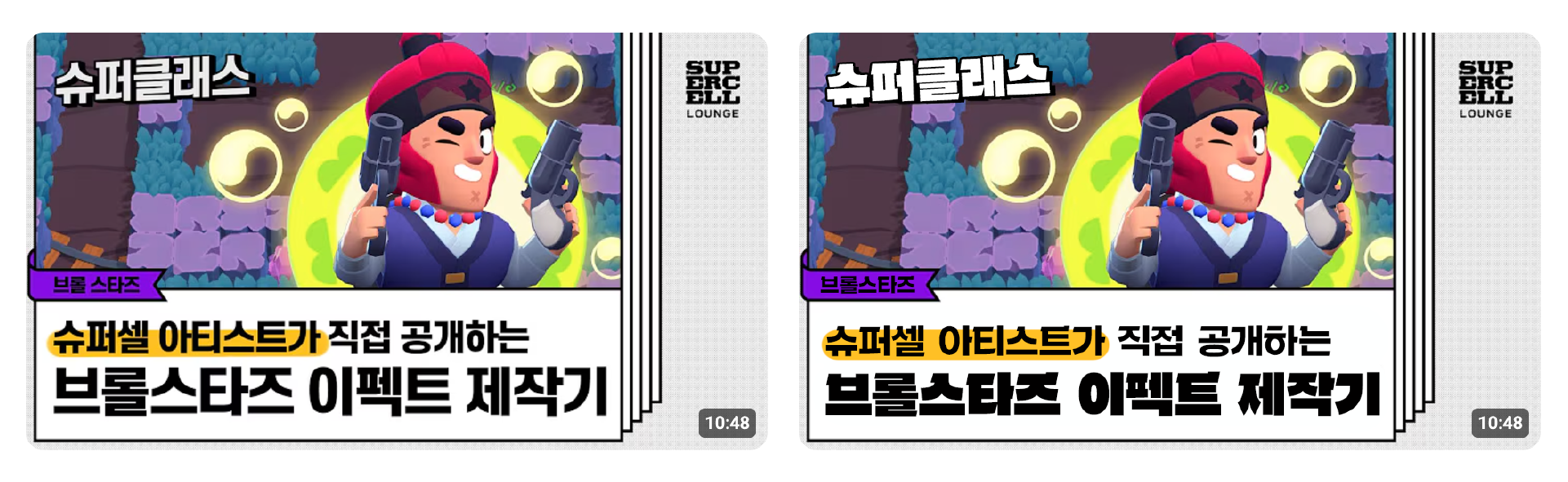
A Reunion After Ten Years
After Supercell launched the mobile game Brawl Stars in 2019, it gradually gained popularity in Korea and generated enthusiastic responses from users, leading to a growing need to strengthen the brand image for the Korean market. While the English version used a Latin font that effectively conveyed the brand identity of Brawl Stars, the Korean version relied on a font with a different tone, leaving room for improvement in terms of design consistency. Building on this popularity, Supercell decided to develop a new Hangul font to further solidify the Brawl Stars brand identity in Korea, and approached Sandoll for this project.
In-game screens from Brawl Stars
The connection between Supercell and Sandoll dates back about ten years, beginning with the development of the Hangul font for the popular game Clash of Clans (Link). I was involved in the design work at the time, and as part of the job, I started playing the game. As the work progressed, I gradually became drawn to Supercell’s games and their world, and before I knew it, I had become an enthusiastic user and fan. (From then until now, I still play the game every day.)
After the initial font development, there were several rounds of updates and communication, but it was truly a pleasure to once again collaborate on a game font for Supercell this time. The joy was even greater when it was confirmed that the font would be developed together with Sandoll. Working with a game I love and a company I admire, I naturally took part in the design process with genuine enjoyment.
In-game screens from Clash of Clans
Latin → Hangul Matching Design
At Sandoll, we develop fonts for a wide range of languages, including Hangul, the Latin alphabet, Cyrillic, and Chinese characters. When developing fonts for two or more languages, we typically begin by designing the script that is most critical to the client. For domestic clients, Hangul is often designed first. In contrast, when working with overseas clients, the Latin alphabet is usually designed first to prioritize local usage, and Hangul is then matched to that Latin design.
Because Sandoll has extensive experience developing fonts for international clients, we are well accustomed to this approach. The Brawl Stars project followed the same process. As mentioned earlier, the English version already used a Latin font that effectively conveyed the Brawl Stars brand identity, and we were asked to design a Hangul counterpart that would align with it. In such cases, the design process generally proceeds in the following order:
Analysis of the Latin design
Hangul design and testing based on the analyzed characteristics
Interpretation (adaptation) and refinement
First, we analyze the structure and character of the Latin design. This includes identifying whether it falls into a humanist or geometric category, examining letter width, the degree of openness in counters, and the underlying skeleton, as well as reviewing detailed stylistic expressions and structural continuity.
Next, we apply the analyzed characteristics to Hangul and proceed through testing and iterative refinement. At times, certain Latin features may be applied more directly, but rather than forcing a literal transfer, we aim for a natural integration. I often refer to this process as “interpretation.” Much like adaptation in translation—where meaning and tone are shaped to fit context rather than rendered word for word—this approach seeks a natural and coherent result rather than a rigid, literal conversion.
So, how was the matching done?
In this project, we developed two styles: 「Brawl Display」 and 「Brawl Gothic」. In this article, we will focus on the design process of 「Brawl Display」.
Structural Analysis
One notable feature was the relatively high x-height of the Latin lowercase letters. This means that the height difference between uppercase and lowercase letters, as well as the gap between ascenders and the x-height, is not very large. Based on this structure, we determined that Hangul’s square-based structure, which also has relatively small height variation, would be a good match.
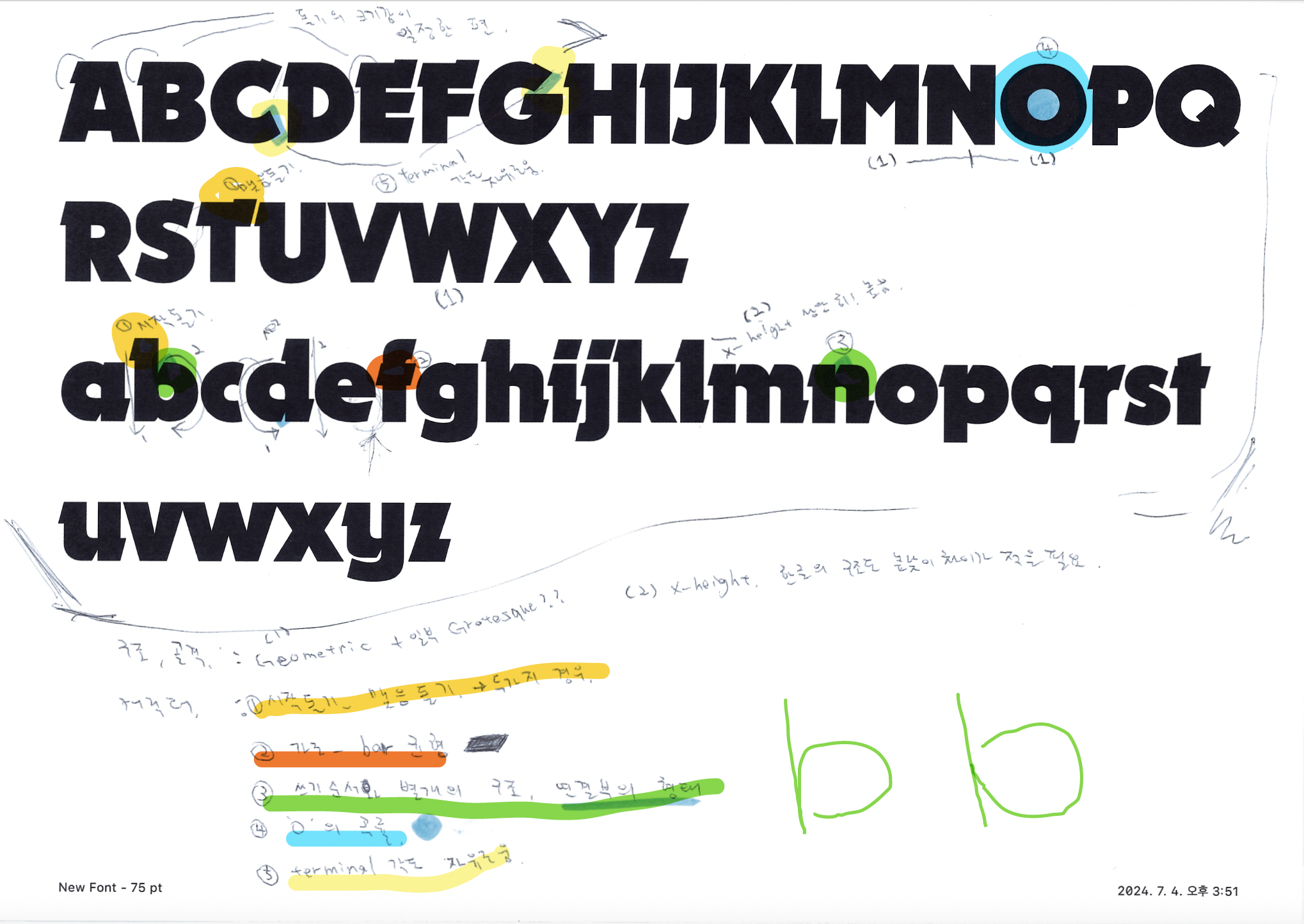
Latin Analysis and Identification of Key Characteristics
Feature Analysis and Interpretation
We were able to identify the character traits of the Latin alphabet shown in the image above, and tested how these could be expressed naturally when designing Hangul. One of the considerations during this process was that, in the Latin, protruding details were applied broadly to the stems. However, if the same approach were applied directly to Hangul—specifically to single vertical stems such as ㅏ or ㅣ—it could appear overly repetitive or unnecessarily complex (A). This was considered especially problematic given the heavy weight.
As a result, we established a rule in which the protruding element was applied only to consonants, and only to the initial consonant, in order to control its frequency (B).
If translated literally, the design could have been expressed as in A. 「Brawl Display」, however, was designed as shown in B.
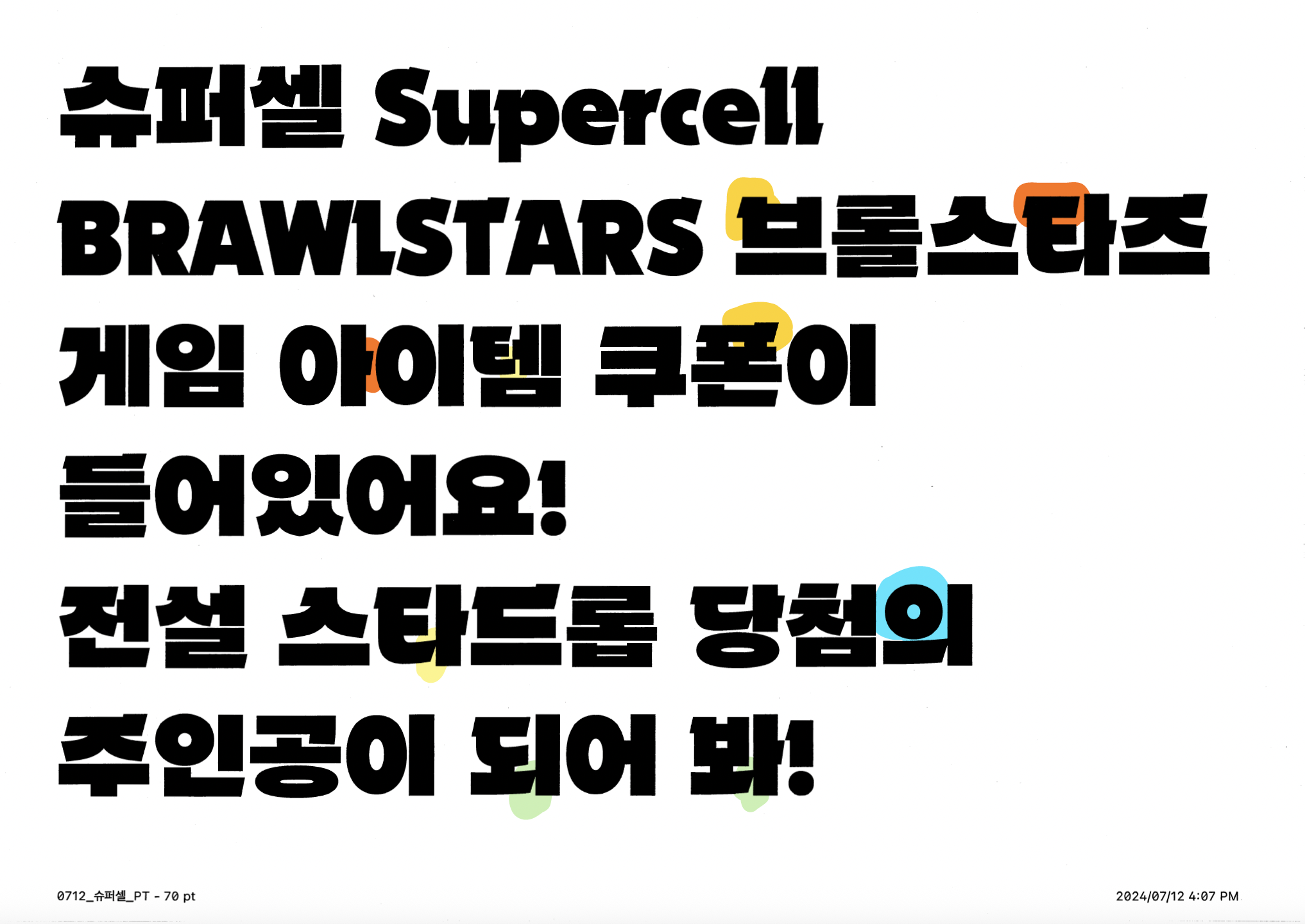
Before: existing YouTube thumbnail → After: 「Brawl Display」 applied
Ultimately, the two fonts developed by Sandoll were released publicly and have since been applied within the Brawl Stars game. Many user responses note that readability has improved significantly. They can be downloaded by visiting the [Brawl Stars] Hangul Font Promotion (Link), and can also be used together with the cute and well-designed templates created by Supercell. Once you try the Brawl Stars Hangul font… you may find yourself wanting to enjoy the game as well.